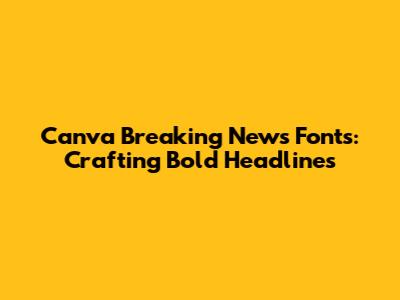
- Montserrat: This is a modern sans-serif that is incredibly versatile. Available in a wide range of weights from Thin to Black, Montserrat is your go-to for clean, impactful headlines. Its geometric forms give it a contemporary feel, and the bolder weights are perfect for making a strong statement. It’s super readable, making it ideal for those urgent announcements. Seriously, try it in bold or black – chef's kiss.
- Oswald: If you want something that feels a bit more classic but still punchy, Oswald is a fantastic choice. It's a condensed sans-serif that works wonderfully for headlines where space might be a bit tight, but it doesn't sacrifice readability. Its slightly taller x-height gives it a strong presence. It has a very journalistic feel without looking dated, making it a solid option for a wide variety of news-related graphics.
- League Gothic: This is another stellar condensed sans-serif. League Gothic is all about impact. It's bold, it's strong, and it has a vintage yet timeless appeal that works surprisingly well for modern breaking news graphics. It's perfect when you need your headline to command attention and dominate the space. Use it for those moments when you need maximum visual punch.
- Bebas Neue: Similar to League Gothic, Bebas Neue is a popular, all-caps sans-serif that exudes confidence and boldness. It’s incredibly straightforward and has a clean, modern look. It's fantastic for headlines that need to be read quickly and make an immediate impression. Its simplicity is its strength, ensuring your message cuts through.
- Anton: For a truly attention-grabbing headline, Anton is your guy. This is a heavy, condensed sans-serif that is designed for impact. It's bold, it's strong, and it will make sure your headline is seen. Use it sparingly for maximum effect, as its intensity can be overwhelming if overused, but for that critical breaking news alert? It's perfect.
- Playfair Display (Bold/Black): While many breaking news fonts lean sans-serif, sometimes a strong serif can add a touch of gravitas. Playfair Display, especially in its bolder weights, can offer a more traditional, editorial feel. It has high contrast and sharp serifs, giving it a sophisticated yet impactful look. It’s great if you’re aiming for a more 'establishment' news outlet vibe.
Hey design enthusiasts! Ever found yourself staring at a blank canvas, trying to whip up a news-style graphic that just screams URGENT and IMPORTANT? You know, the kind that grabs attention faster than a cat video goes viral? Well, let me tell you, the font you choose is absolutely critical. It's the silent workhorse that dictates the mood, the tone, and the immediate impact of your message. When it comes to breaking news, we're not talking about subtle elegance or whimsical charm; we're talking about bold, clear, and impactful typography that cuts through the noise. Think of those iconic news station graphics or the front pages of major newspapers – they all rely on specific font choices to convey authority and urgency. And guess what? You don't need to be a seasoned graphic designer or have a Hollywood budget to achieve that professional, attention-grabbing look. Canva, that super-friendly design platform we all know and love, is packed with a treasure trove of fonts that are perfect for your breaking news needs. Whether you're designing a social media post about a local event, creating a presentation, or even just making a fun, eye-catching announcement, the right font can make all the difference. So, let's dive into the world of Canva's breaking news fonts and discover how you can make your headlines pop like never before. We'll explore what makes a font suitable for breaking news, highlight some of the best options available in Canva, and give you some killer tips on how to use them effectively. Get ready to elevate your designs and make sure your message gets seen and heard!
What Makes a Font Perfect for Breaking News?
So, what's the secret sauce? What makes a font scream 'breaking news' rather than 'gentle whisper'? It's all about legibility, impact, and a sense of authority. Breaking news fonts need to be instantly readable, even at a glance, and from a distance. This means avoiding overly ornate, thin, or condensed styles that can become muddled. Think sans-serif fonts – those without the little decorative 'feet' at the ends of the strokes. They are generally cleaner, more modern, and easier to read on screens and in print. High contrast between thick and thin strokes can also add drama, but it needs to be balanced with clarity. You want a font that commands attention without being jarring or difficult to decipher. Serif fonts, on the other hand, can work, but you need to be strategic. A bold, strong serif font with prominent strokes can convey tradition and gravitas, which is often associated with established news organizations. However, delicate serifs or overly complex styles are usually a no-go for the immediate, high-impact feel of breaking news. Weight is another huge factor. We're talking bold, extra-bold, or even black weights here. These heavier styles ensure your headline stands out and grabs the reader's attention immediately. They convey seriousness and importance. Width also plays a role. Fonts that are not too condensed and have a good, stable width tend to be more readable and authoritative. Finally, consider the personality of the font. Breaking news fonts often carry a sense of urgency, seriousness, and reliability. They should feel professional and trustworthy. You're trying to inform people quickly and efficiently, so the font needs to support that objective. It’s not just about aesthetics; it’s about conveying information effectively under pressure. The goal is to create a visual hierarchy that tells the viewer, 'This is important, and you need to read it now!'. We want fonts that have a strong presence, a clear voice, and the ability to carry significant weight – both literally and figuratively – in your design.
Top Canva Fonts for Breaking News Headlines
Alright, guys, let's get down to the good stuff! Canva has an insane library of fonts, and while many are fantastic for everyday designs, some really shine when you need that breaking news vibe. Here are a few of my absolute favorites that you can find right within Canva, ready to supercharge your headlines:
Remember, the key is to experiment with these fonts in their boldest weights. That's where the real breaking news magic happens. Don't be afraid to try them out in different sizes and contexts to see how they perform. You'll be surprised at how much character and authority a well-chosen font can bring to your design.
Tips for Using Breaking News Fonts Effectively in Canva
Okay, you've picked your killer font. Now what? Just slapping text onto a background isn't going to cut it, guys. To truly make your breaking news graphics sing, you need to think about how you're using these powerful fonts. It’s about more than just the font itself; it’s about the entire design context. Let’s break down some pro tips for making your Canva breaking news designs absolutely unforgettable:
1. Embrace the Boldness: Weight and Size Matters!
This is non-negotiable. For breaking news, boldness is key. Always opt for the boldest weights available for your chosen font – think Black, Extra Bold, or Heavy. If your font doesn't have these options, consider a font that does. Size is equally crucial. Your headline needs to be the largest element on the page, demanding immediate attention. Use contrasting font sizes between your headline and any sub-headlines or body text to create a clear visual hierarchy. The headline should immediately tell the viewer what the most important piece of information is. Don't be shy! Make that headline BIG and BOLD.